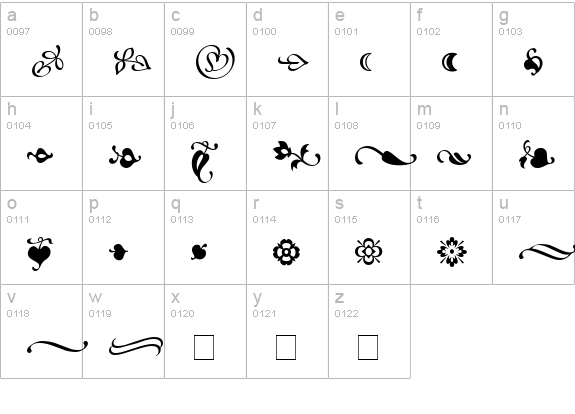
Atlantix Ornaments SSi Font Details
Atlantix Ornaments SSi font is a stunning display typeface that exudes elegance and sophistication. With intricate details and intricate designs, this font is perfect for adding a touch of luxury to your projects. The ornate elements and decorative flourishes of Atlantix Ornaments SSi font make it a versatile choice for a wide range of design applications, from invitations to logos to packaging. Best of all, Atlantix Ornaments SSi font is available for free download at FontsMarket.com. This means that you can easily access this exquisite font and incorporate it into your creative projects without any cost. Whether you're a designer looking to elevate your work or a DIY enthusiast wanting to add a touch of glamour to your personal projects, Atlantix Ornaments SSi font is a fantastic choice that won't break the bank. Download it today and let your creativity shine with this beautiful and ornate typeface.